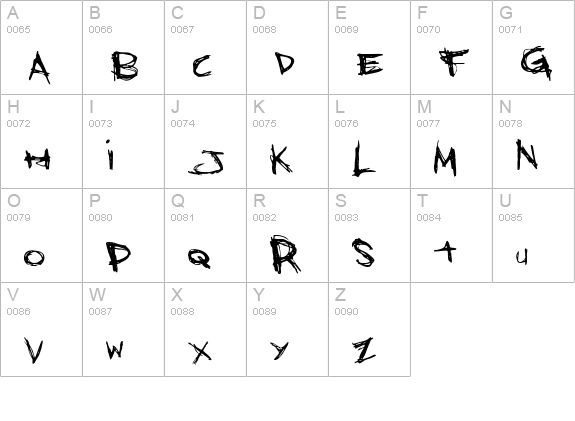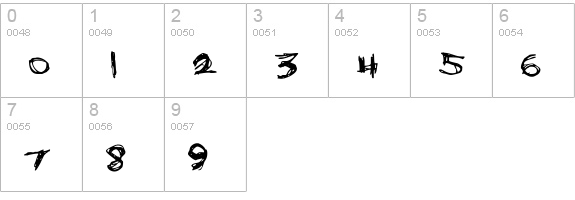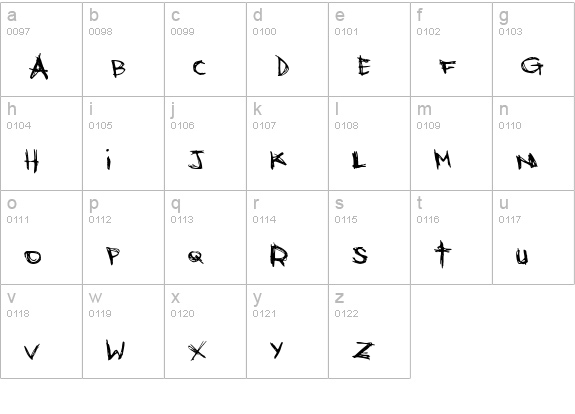
Bones Bummer Font Details
Introducing Bones Bummer font, a versatile and unique typeface that combines classic elegance with a modern twist. This font exudes a sense of mystery and sophistication, making it perfect for a wide range of design projects. With its sharp lines and intricate details, Bones Bummer font is sure to make a bold statement. The best part? Bones Bummer font is available for free download at FontsMarket.com. This means you can add this stunning font to your collection without any cost, allowing you to create eye-catching designs without breaking the bank. Whether you're working on branding, posters, invitations, or any other creative project, Bones Bummer font is a fantastic choice that will elevate your work to the next level. Don't miss out on the opportunity to enhance your designs with the striking elegance of Bones Bummer font. Download it for free today and start creating stunning visuals that are sure to impress!